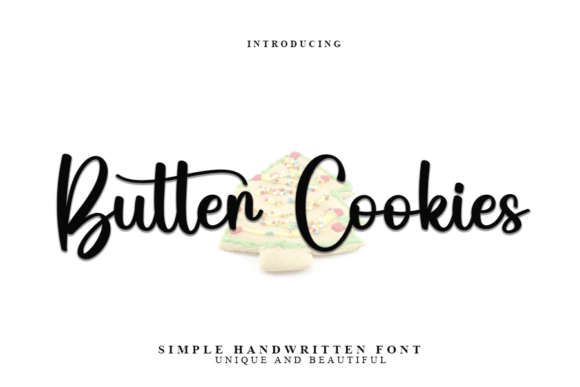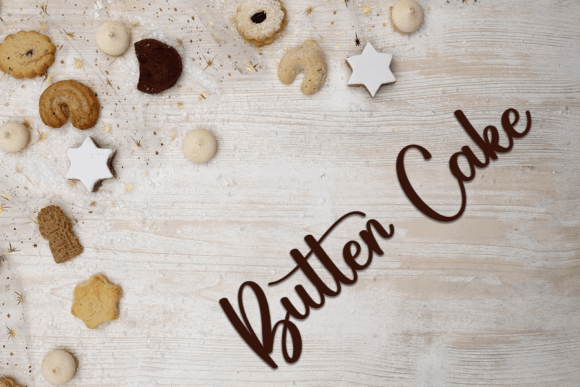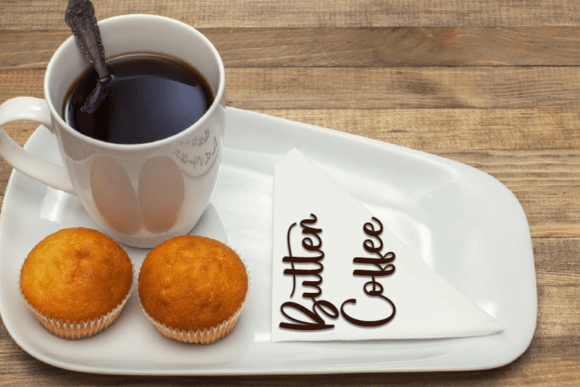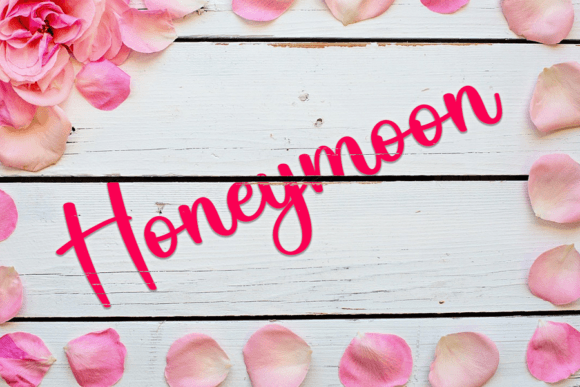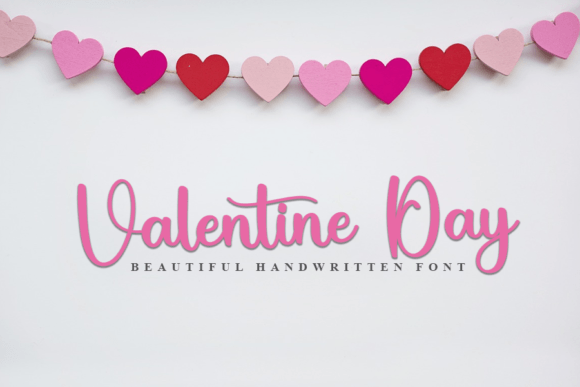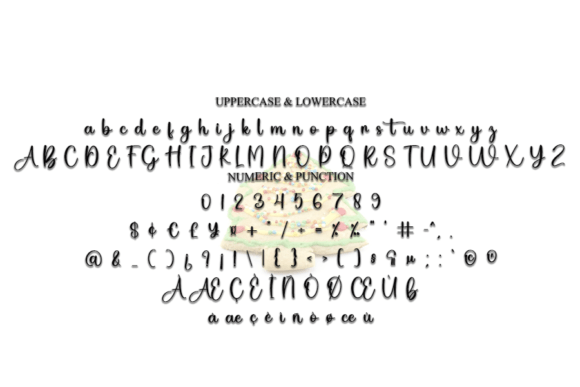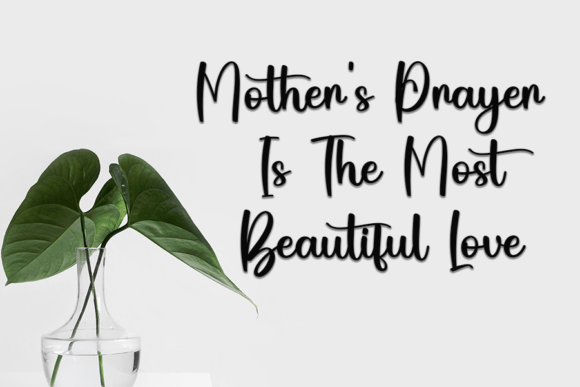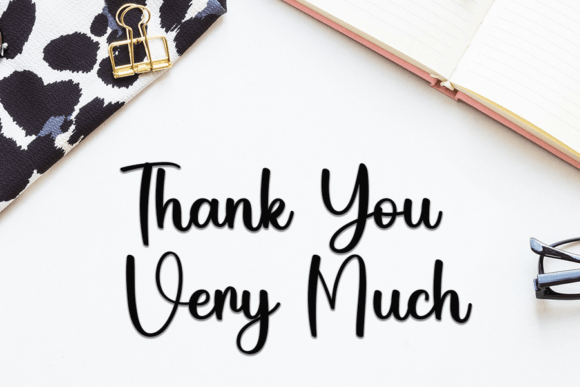
Butter Cookies Font
Butter Cookies Handwritten Font – Bold and Beautiful Script
The Butter Cookies Handwritten Font is a bold, stylish, and elegant script typeface designed to add charm and character to your creative projects. With its strong handwritten strokes and smooth flow, it brings warmth and professionalism to both print and digital designs. Whether you’re crafting invitations, logos, or posters, this font ensures your work looks polished and memorable.
A Script with Stylish Personality
The Butter Cookies Handwritten Font blends bold handwritten curves with delicate flow. Its eye-catching strokes create a sense of confidence, while its balanced design keeps it approachable. Because of this, it works equally well in personal crafts and professional branding.
Perfect for Greeting Cards and Invitations
One of the most popular uses of the Butter Cookies Handwritten Font is in greeting cards and invitations. Its bold yet elegant style makes wedding cards, thank-you notes, and seasonal greetings stand out. At the same time, it adapts beautifully to posters, business cards, and product packaging, where a handwritten script adds uniqueness.
The Butter Cookies Handwritten Font adapts effortlessly to many design applications. From presentations and digital artwork to t-shirts and logos, it provides a bold handwritten look that feels both modern and timeless. Its flexibility makes it a reliable choice for multiple creative needs.
Why Designers Love Butter Cookies Font
Designers love the Butter Cookies HandwrittenFont because it combines boldness with style. Its expressive handwritten strokes add character, while its readability ensures professional usability. This harmony of creativity and clarity makes it a must-have typeface in any collection.
In summary, the Butter Cookies HandwrittenFont is a bold, beautiful, and versatile script typeface. With its smooth handwritten flow, quick installation, and wide usability, it is perfect for invitations, posters, crafts, and logos. Don’t miss the chance to download Butter Cookies HandwrittenFont and bring bold handwritten beauty to your next creative project.